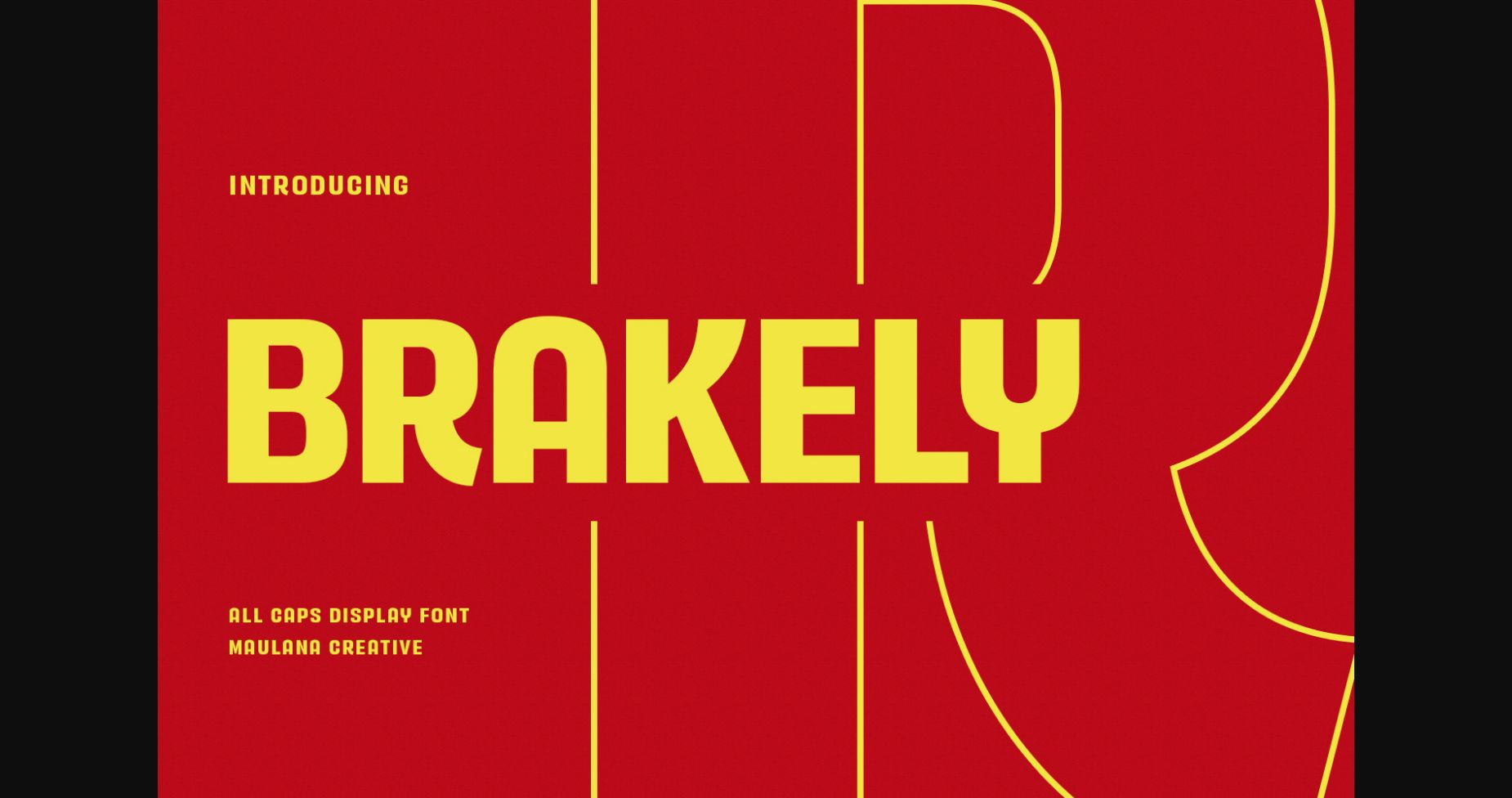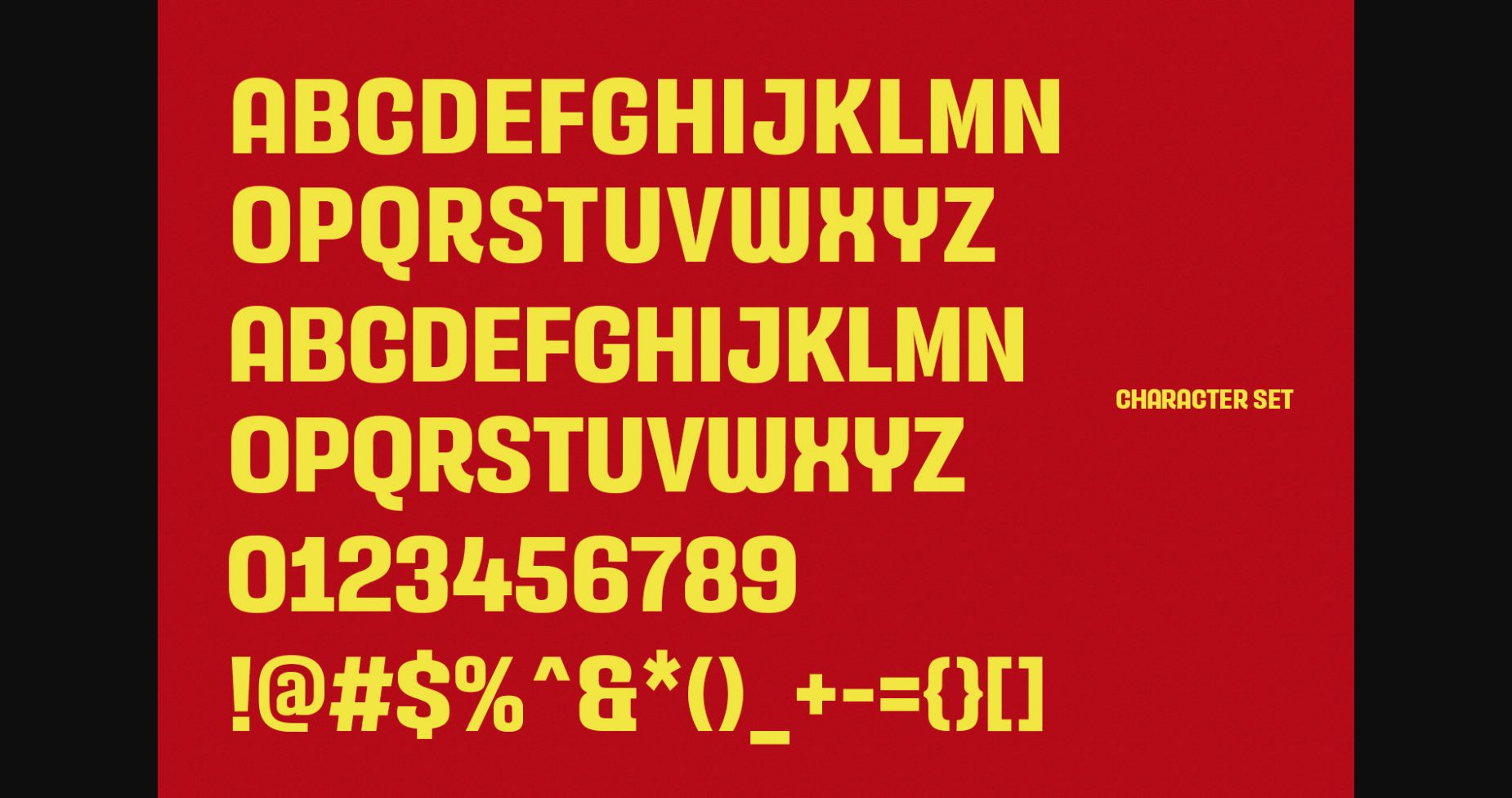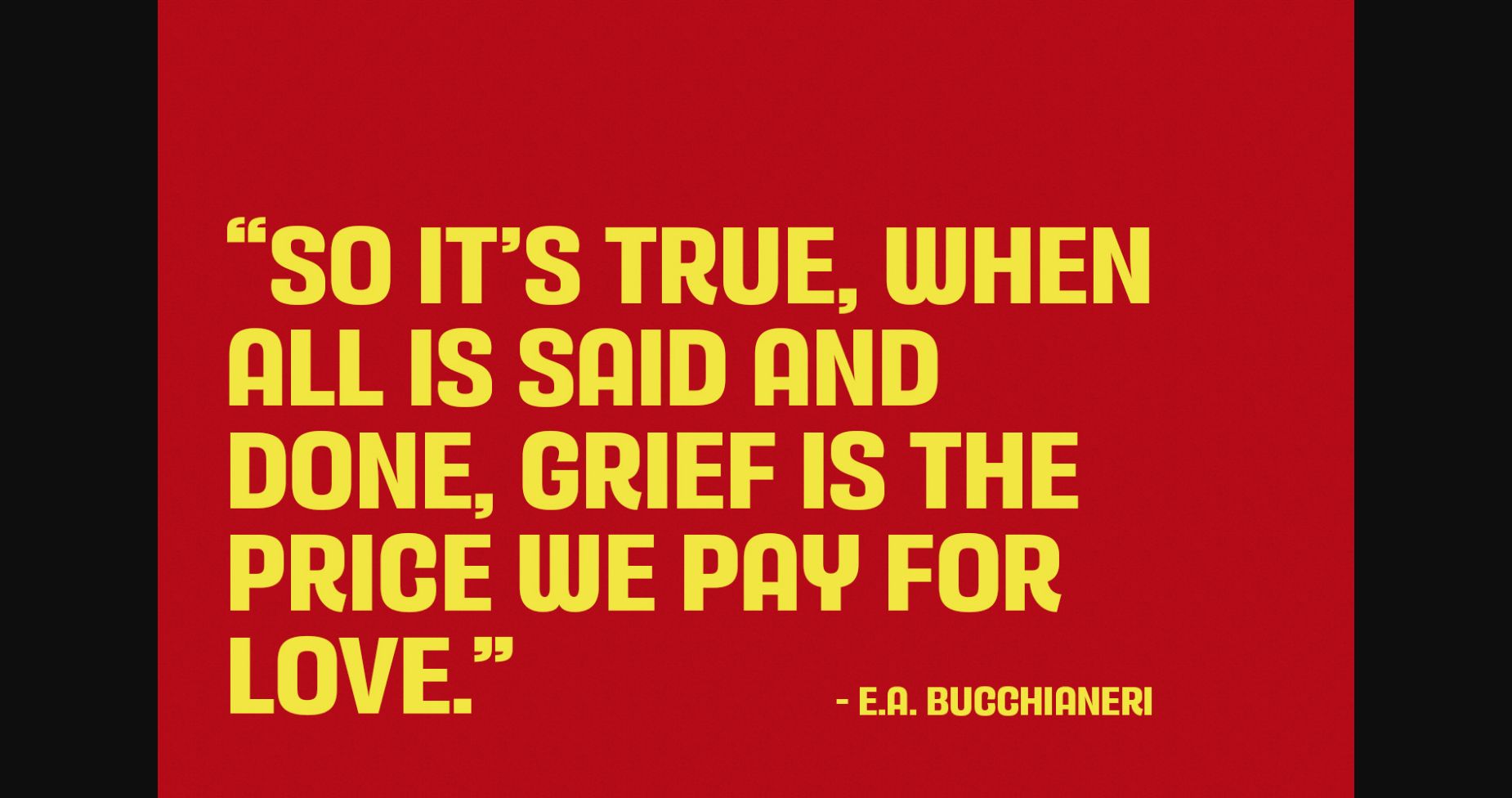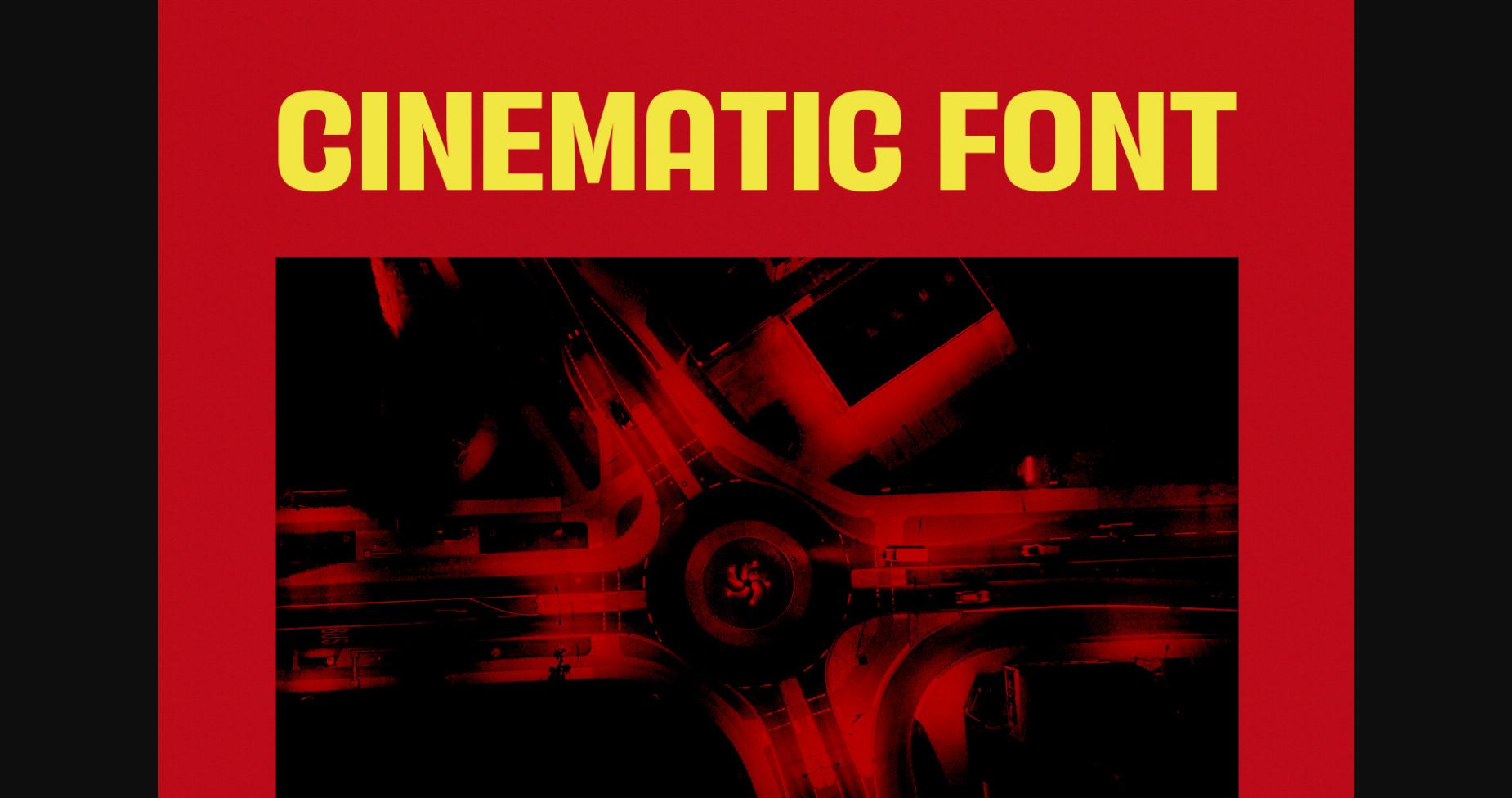
About Brakely Font
Brakely is a modern and sleek font that captures attention with its clean lines and rounded edges. Its minimalist design makes it easy to read, while its unique curvature adds a touch of personality. Perfect for headlines, logos, and branding, this font is sure to make a lasting impression.